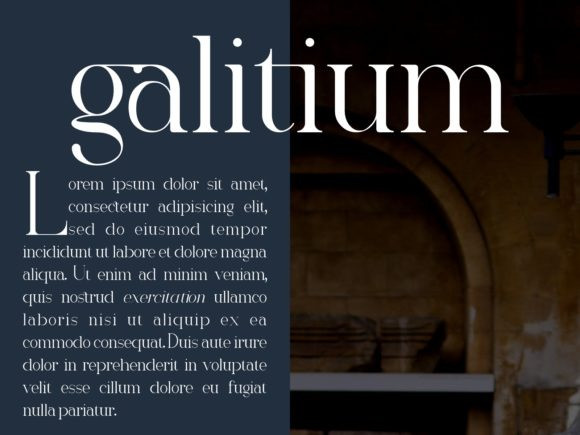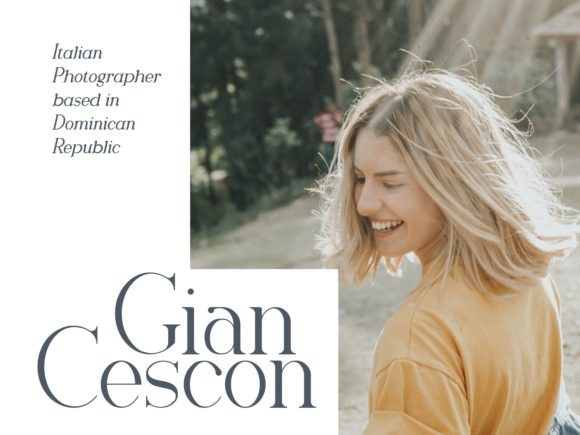
Romany Serif Font Family
Romany Serif is a minimal, neat and beautiful font. It can easily be matched to an incredibly large set of projects, so add it to your creative ideas and notice how it makes them stand out!